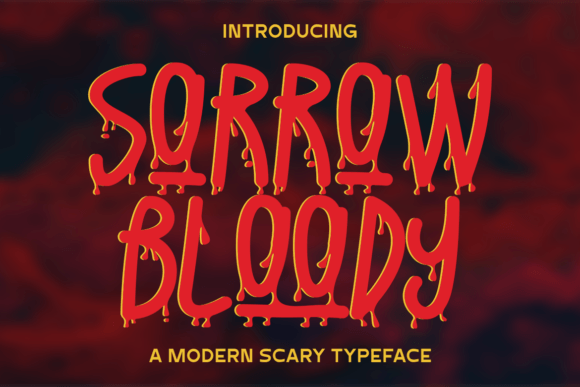
Enter the realm of the macabre with Sorrow Bloody, the display font that oozes haunting beauty. Crafted with precision, this font will cast a spellbinding charm over your Halloween creations. Let your imagination run wild as you conjure chilling invitations, spine-tingling posters, and spellbinding merchandise designs with Sorrow Bloody.
Unleash the haunting allure of Sorrow Bloody and captivate your audience with its eerie elegance. This font is a visual symphony of darkness and mystery, evoking the very essence of the Halloween spirit. Be it greeting cards that send shivers down the spine or warning signs that emanate a sense of impending doom, Sorrow Bloody is your font of choice.
Take your Halloween web designs to the next level with Sorrow Bloody, the font that'll make your website the talk of the haunted town. Its captivating aura will leave visitors spellbound, immersing them in a world of mystery and intrigue.
Sorrow Bloody is not just a font; it's a portal to a world where darkness and beauty intertwine. Its intricate details and captivating curves will add an unforgettable touch to your Halloween projects, making them stand out from the ordinary.
So, embrace the power of Sorrow Bloody and unleash your creativity. Let this font guide you through the shadows and into the heart of Halloween magic.